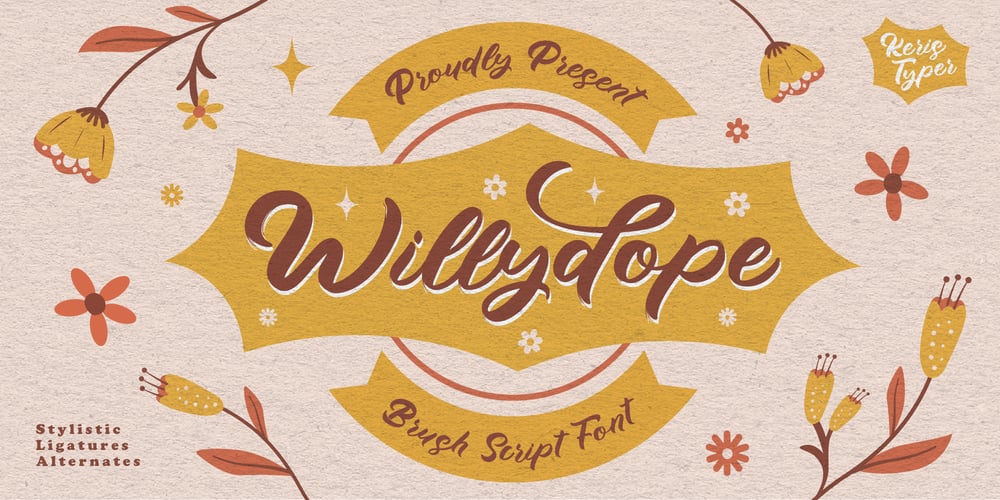
Willydope
Willydope font
Willydope Font Family was designed by Tezar Tantular and published by Keristyper Studio. Willydope contains 1 styles and family package options. Introducing a new font from our Script Collection called Willydope. This hand-drawn typeface is made in a digital hand-drawn style with a classy scripted look. This font is good for logo design, Social media, Movie Titles, Books Titles, short text even long text letters, and good for your secondary text font with sans or serif.**Featured:*** Standard Uppercase & Lowercase* Numeral & Punctuation* Multilingual : ä ö ü Ä Ö Ü ß ¿ ¡* Alternate & Ligature* PUA encodedWe recommend programs that support the OpenType feature and the Glyphs panel such as Adobe applications or Corel Draw. so you can use all the variations of the glyphs.Hope you enjoy our fonts!